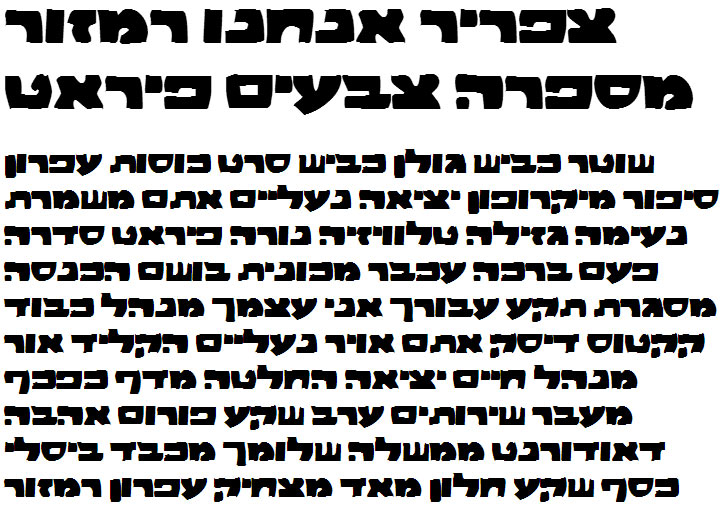
✓ My second font was an attempt at communicating a certain feeling by blackening letters. These letters, just like my first font, "Betzefer", were drawn in math class, and like then, I also used the same black Pilot pen. The paths has been mildly fixed in Fontographer, and immediately spreaded out to cyberspace. The name means "rage" in Hebrew and it's vaguely taken from a forgotten "Kookoo-Bloff & The Mosquitos" song.
Zaam Black Hebrew Font
โœ“ ื”ื’ื•ืคืŸ ื”ืฉื ื™ ืฉืœื™ ื”ื™ื” ื ื™ืกื™ื•ืŸ ืœืชืงืฉืจ ืชื—ื•ืฉื” ืžืกื•ื™ืžืช ืขืœ ื™ื“ื™ ื”ืฉื—ืจืช ืื•ืชื™ื•ืช. ื”ืื•ืชื™ื•ืช ื”ืœืœื•, ืžืžืฉ ื›ืžื• ื”ื’ื•ืคืŸ ื”ืจืืฉื•ืŸ ืฉืœื™, "ื‘ืฆืคืจ", ืฆื•ื™ืจื• ื‘ืฉื™ืขื•ืจ ืžืชืžื˜ื™ืงื”, ื•ื›ืžื• ืื–, ื’ื ืื ื™ ื”ืฉืชืžืฉืชื™ ื‘ืื•ืชื• ืขื˜ ืคื™ื™ืœื•ื˜ ืฉื—ื•ืจ. ื”ื ืชื™ื‘ื™ื ืชื•ืงื ื• ื‘ืขื“ื™ื ื•ืช ื‘-Fontographer, ื•ื”ืชืคืฉื˜ื• ืžื™ื“ ืœืžืจื—ื‘ ื”ื•ื•ื™ืจื˜ื•ืืœื™. ืคื™ืจื•ืฉ ื”ืฉื ื‘ืขื‘ืจื™ืช ื”ื•ื "ื–ืขื" ื•ื”ื•ื ื ืœืงื— ื‘ืžืขื•ืจืคืœ ืžืฉื™ืจ ื ืฉื›ื— ืฉืœ "ืงื•ืงื•-ื‘ืœื•ืฃ ื•ื”ื™ืชื•ืฉื™ื".